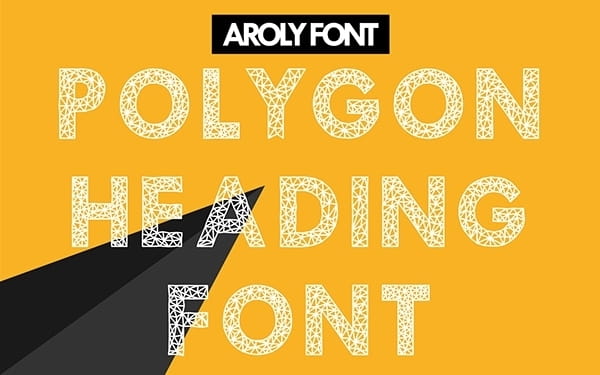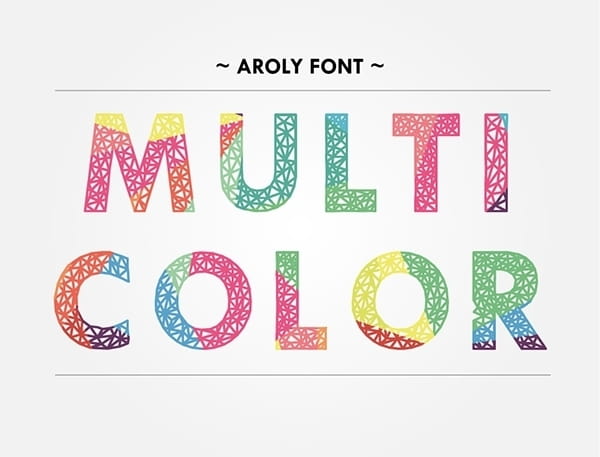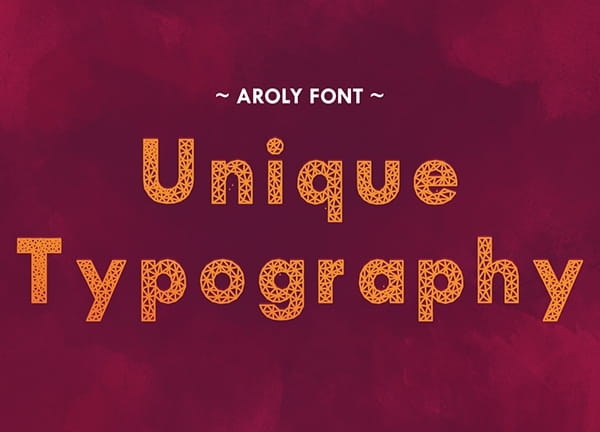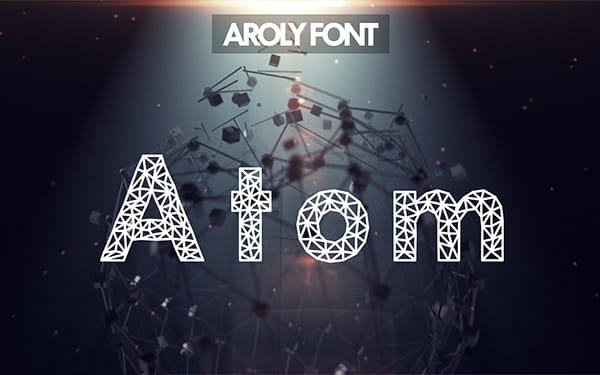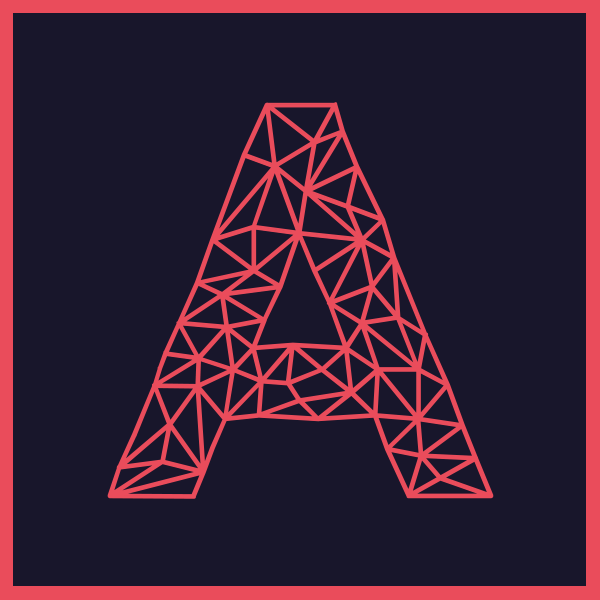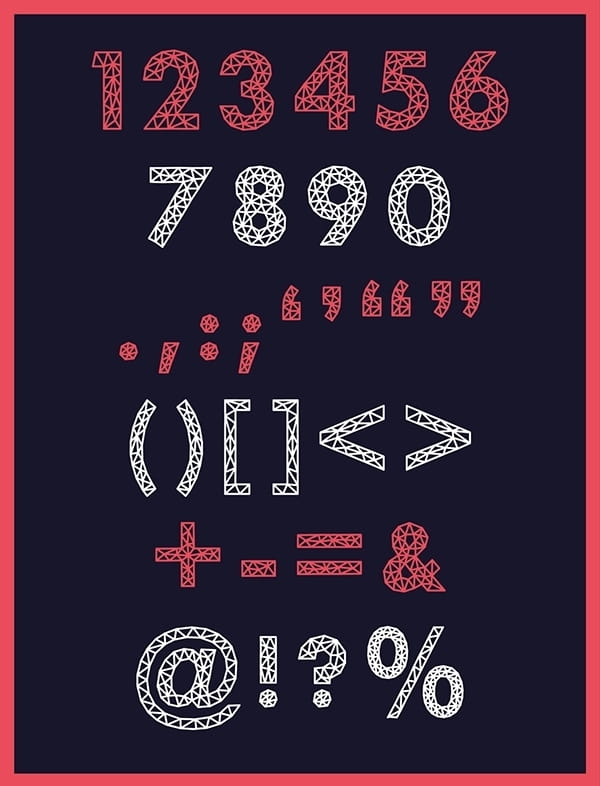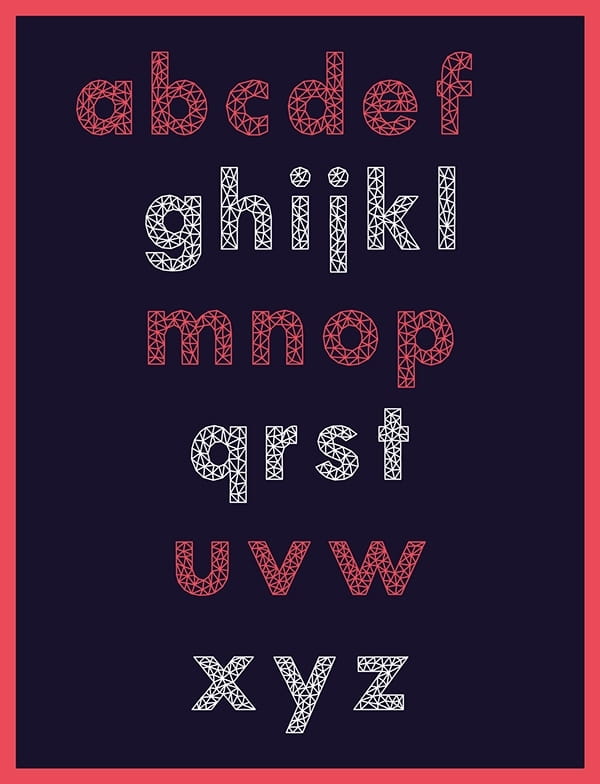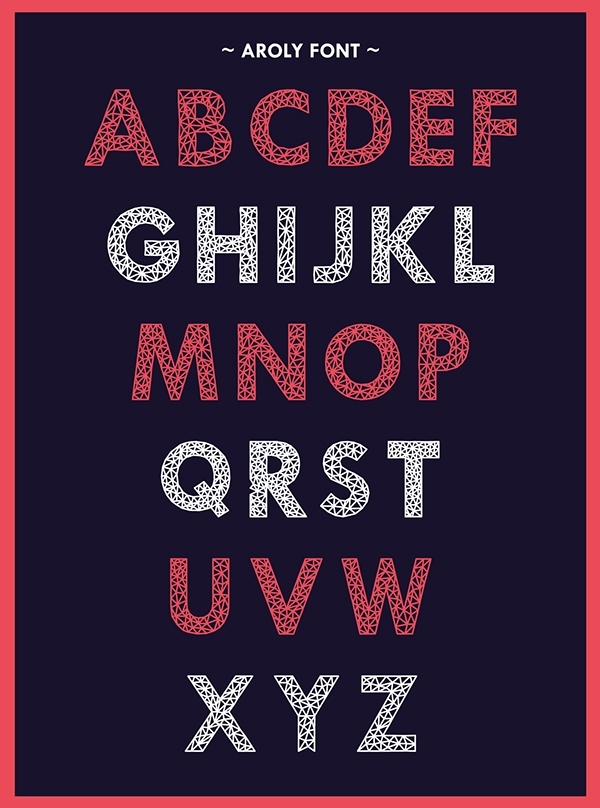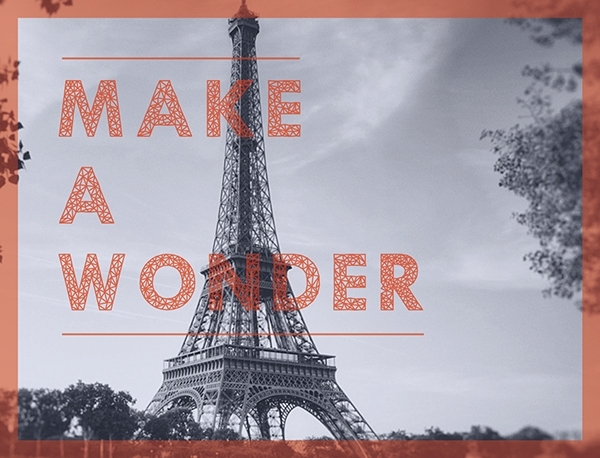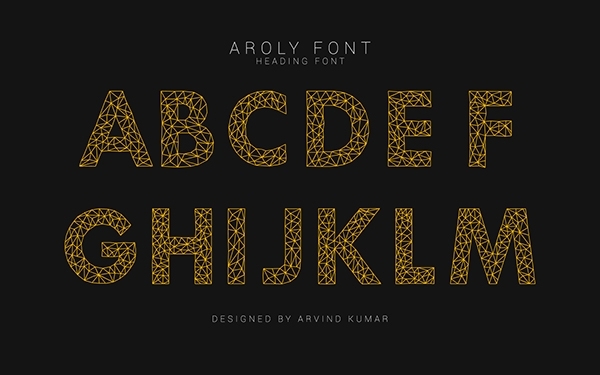
Free Font Aroly
AROLY FONT is a polygonal heading font created by Arvind Kumar. Since polygon made a huge trend,  he decided to make it as a typo that can adapt in all devices. He created this high poly font with trigonal lines.